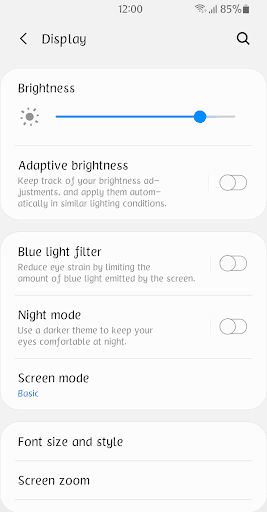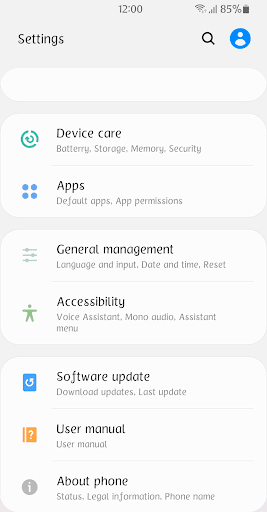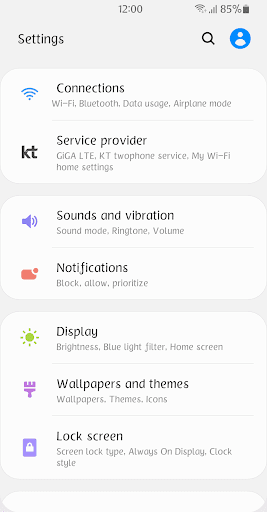
BRInformal™ Latin Flipfont
BRInformal
it's Comfortable font.
This font has some feature.
1 .flower. .rose. .cat.. .dog. wolf. sheep. ,heart, ,star, ,boy, ,girl, ,club, ,phone, ,finger, ==> Convert to Icon
2 .^^. .\/. .**. .Apple. .apple. .peach. .Peach. .pear. .Pear. .balloon. .Balloon.
.heart. .Heart. .star. .Star. .cake. .Cake. .dance. .Dance.
.car. .Car. .train. .Train. .movie. .camera. .pocorn. .snail.